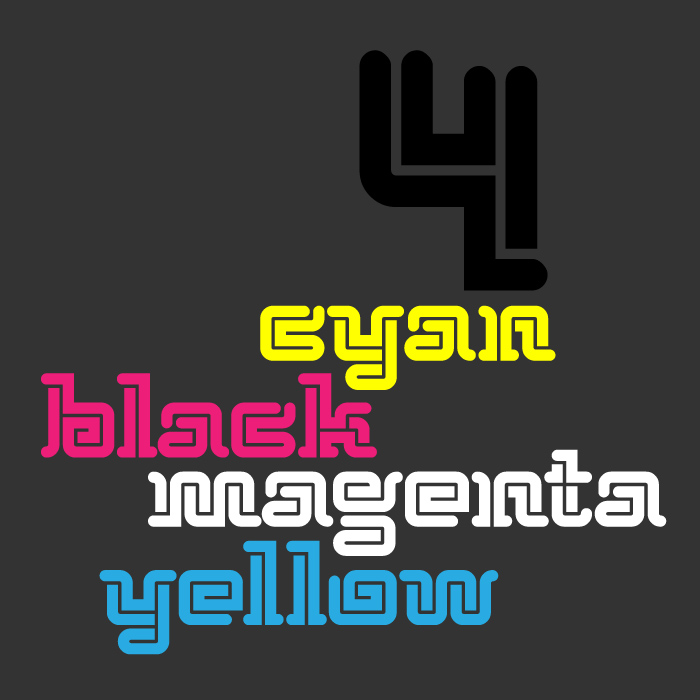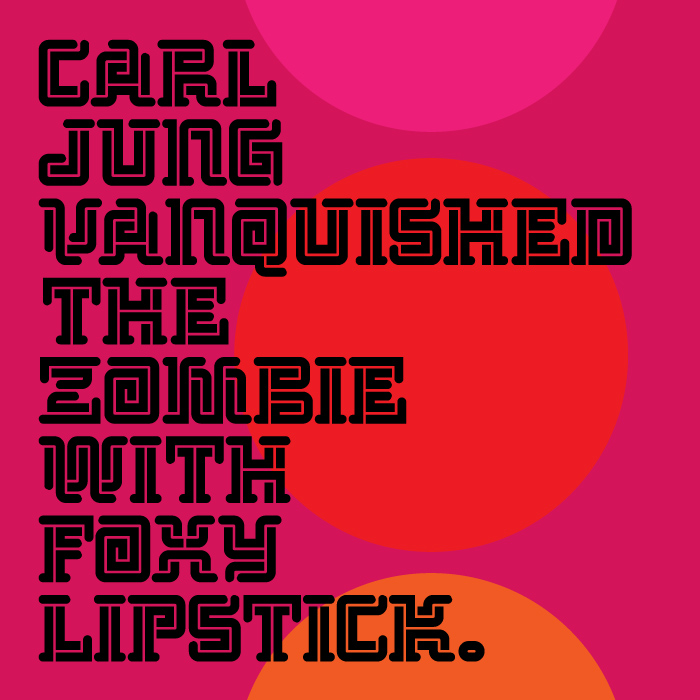
Interesting Native American stylistics. It is interesting how the way of weaving letters differs from Celtic and Indians from the way they are created and for some other reason.
But my favorite among your fonts is Gawe. It's a pity that there are so few characters in it.
Much character in this one, love it! Liked your clean samples, also. 10/10
Congratulations on the TP :) Your pink sampler gives a kind of 3D- with - OpArt effect due to that thin gap. So brilliant.